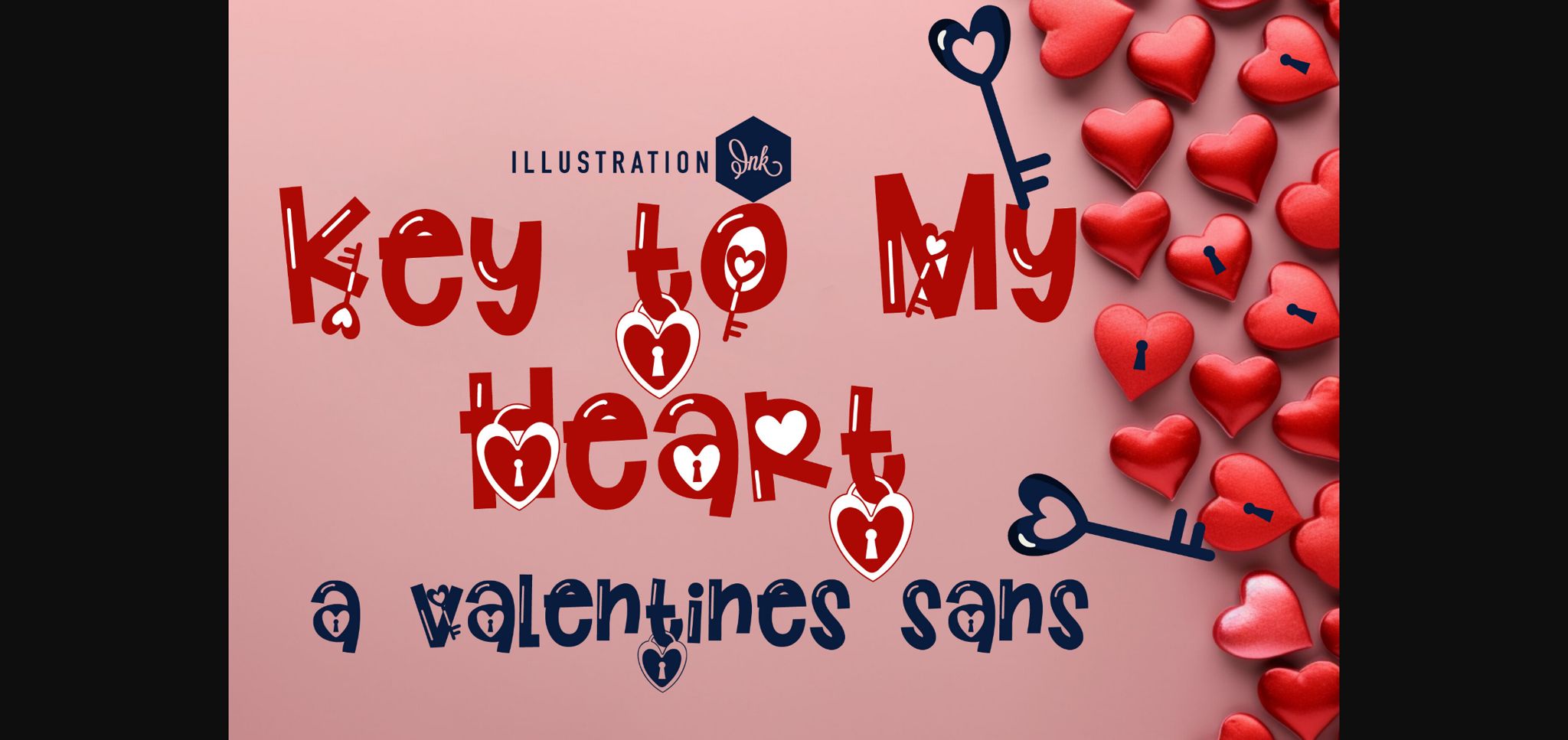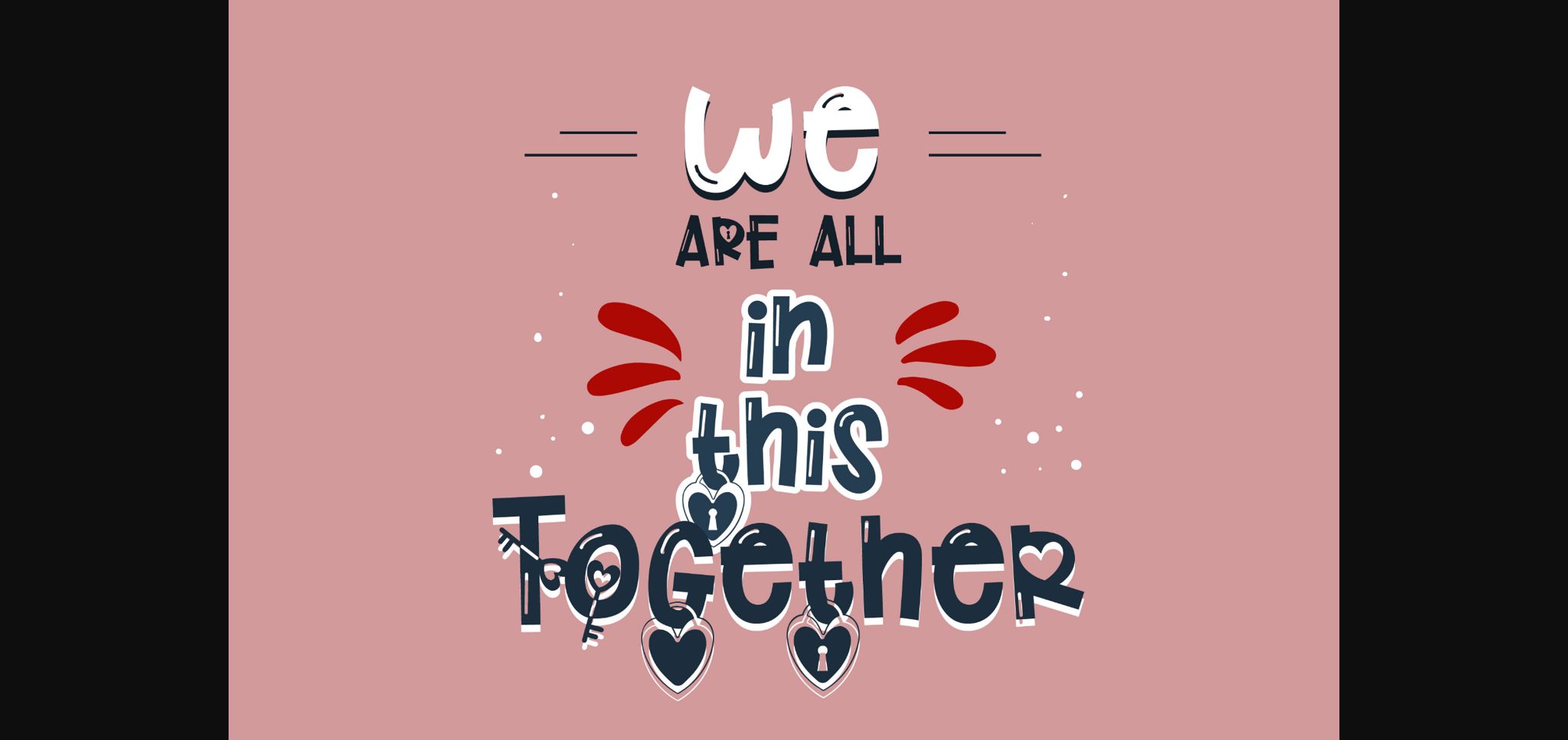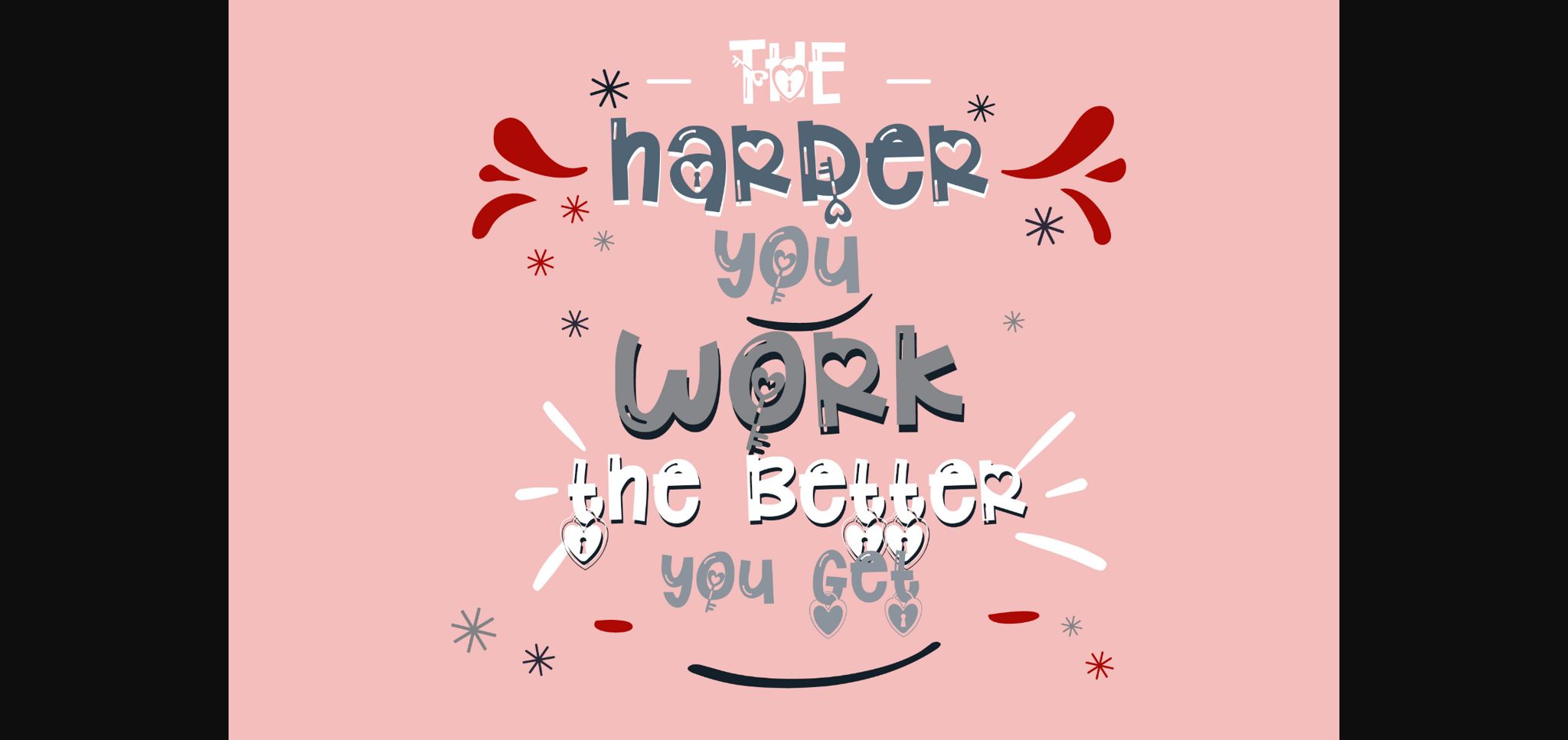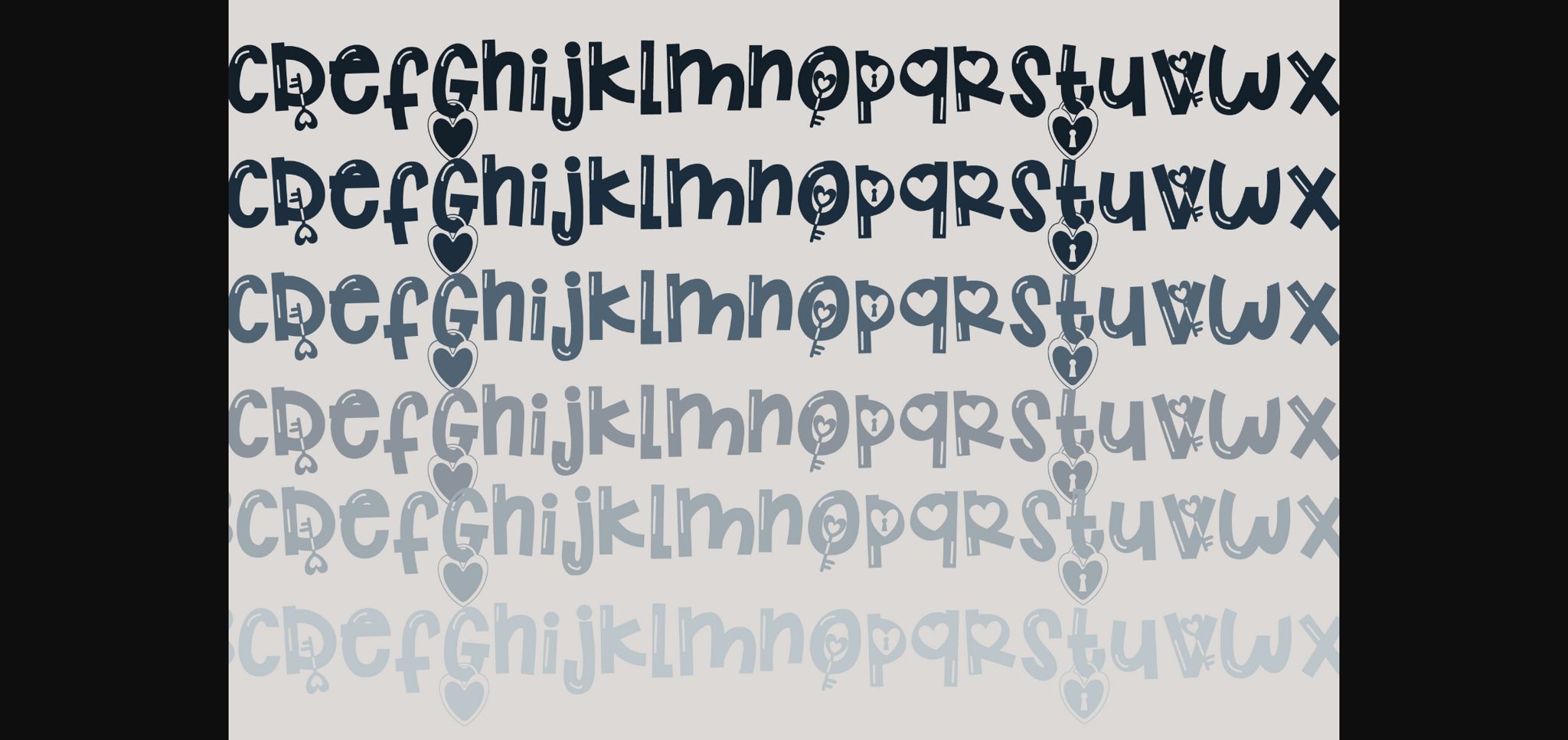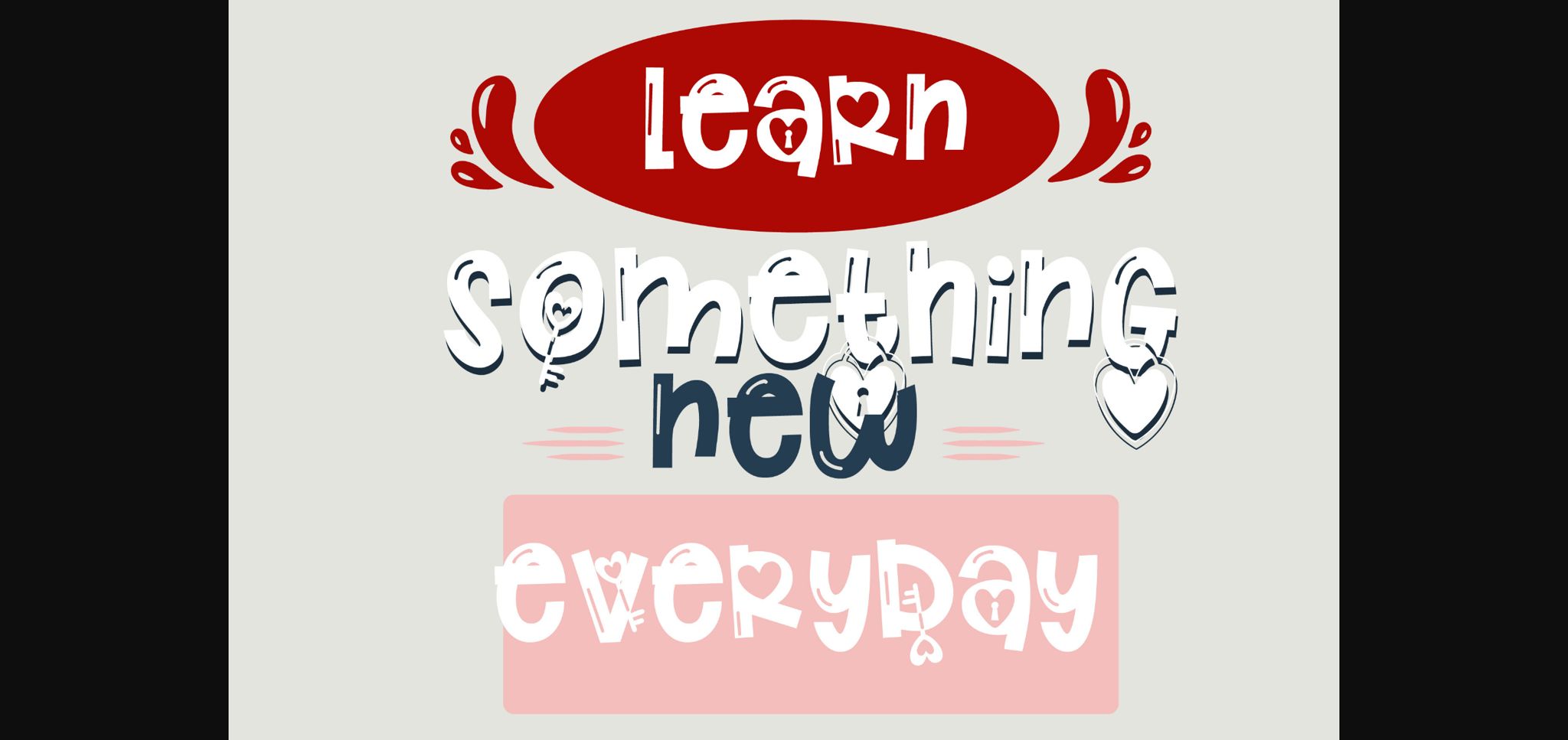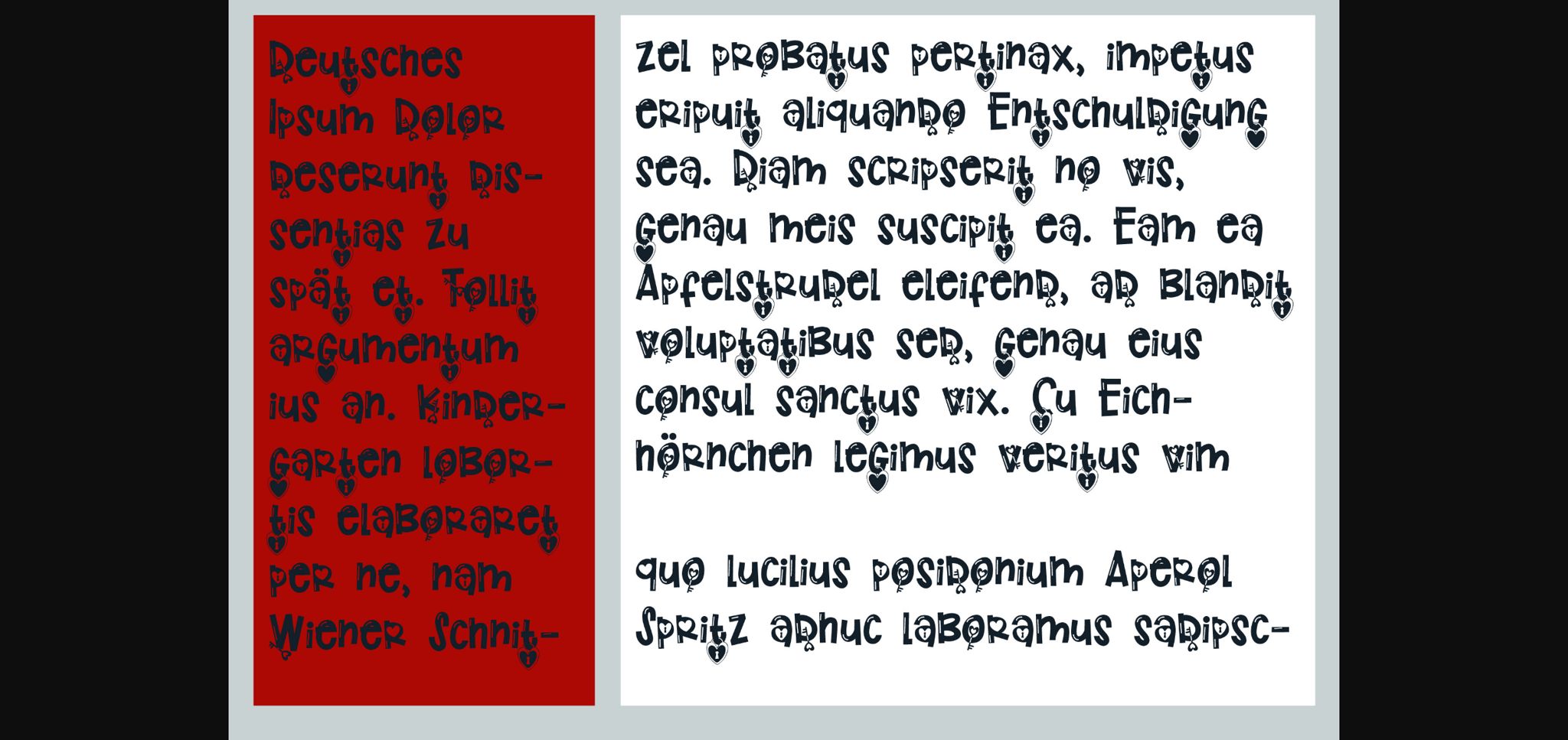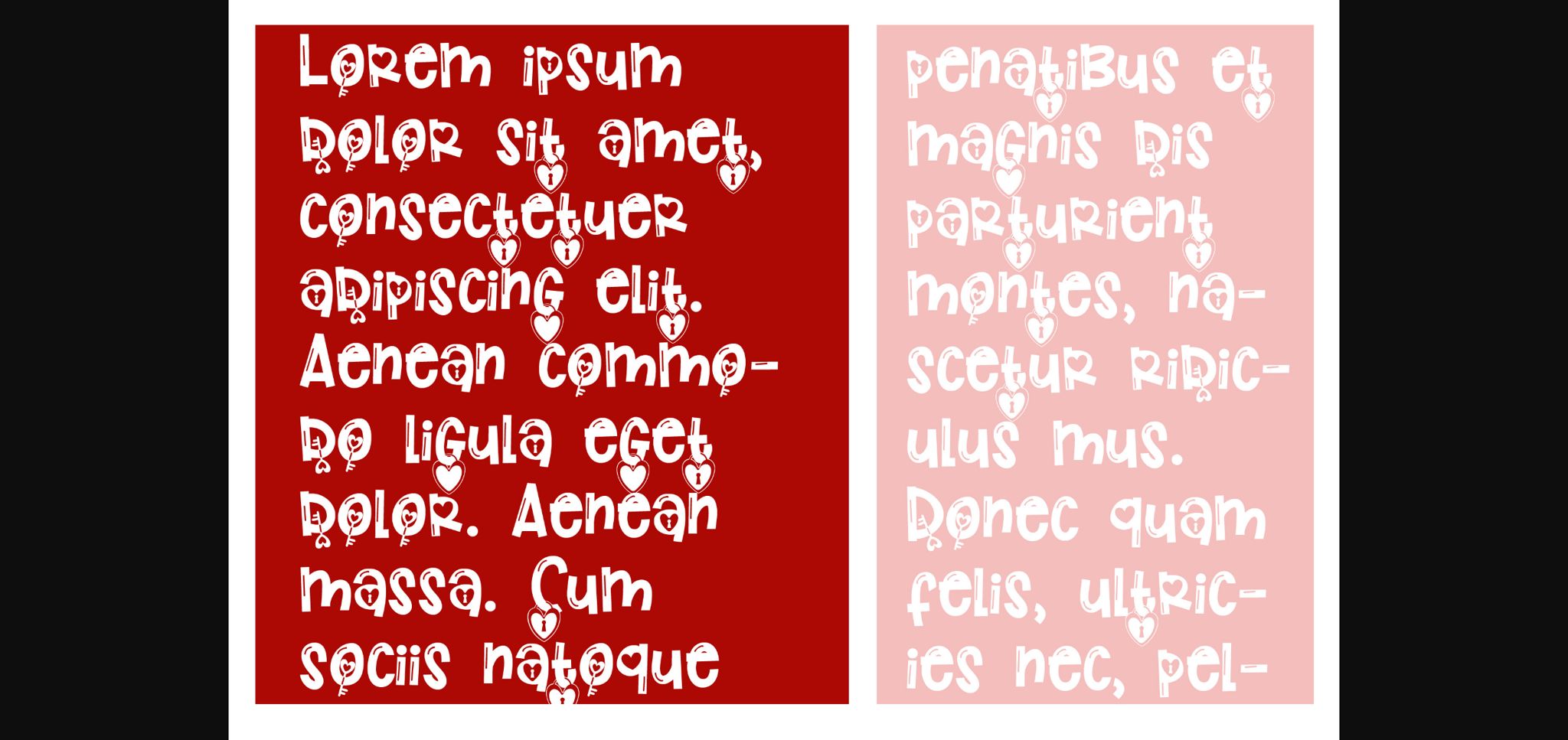
Key to My Heart Font
About Key to My Heart Font
This hand-crafted font is a whimsy sans serif with keys, hearts, and locks. No matter the topic, this font will be an incredible asset to your fonts’ library, as it has the potential to elevate any creation.